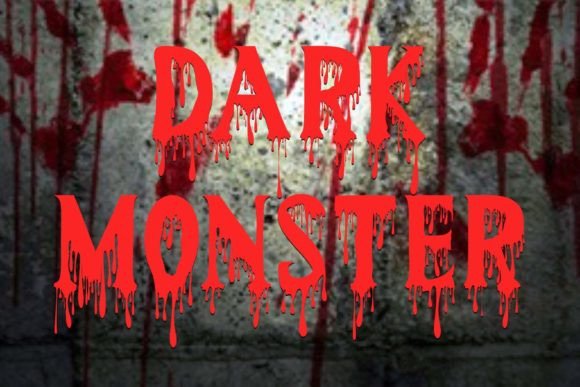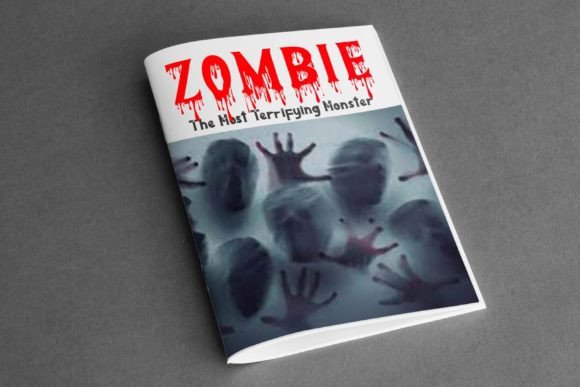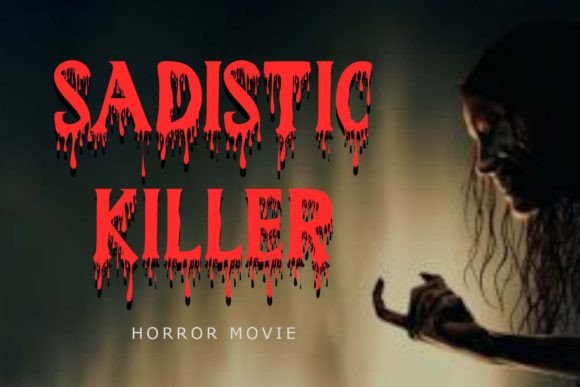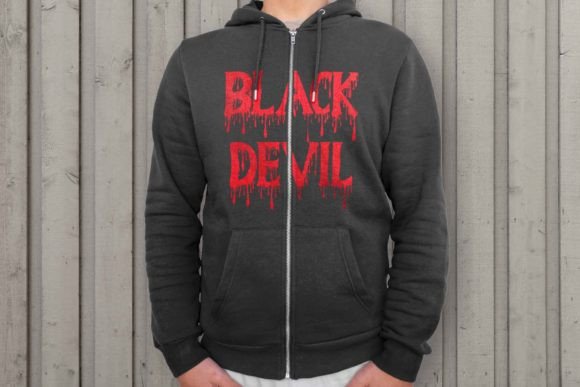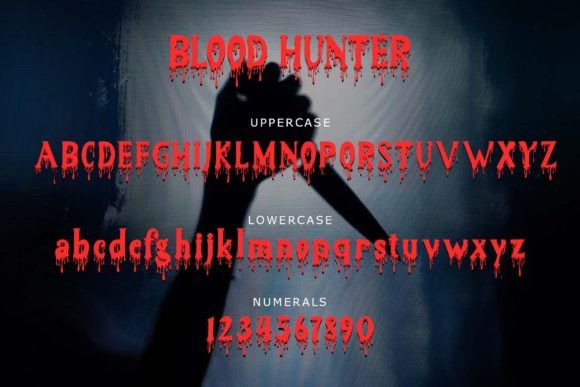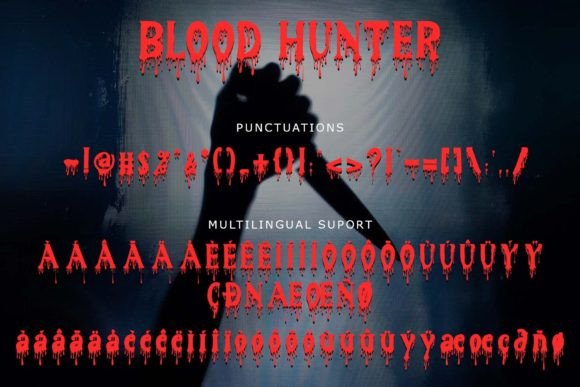
The Birth of a Horror Font: Unleashing the Blood Hunter
As a designer, have you ever found yourself staring at a blank page, struggling to find the perfect font to capture the essence of your dark and twisted project? I know I have. The hours tick by, and the cursor blinks mockingly, until suddenly, a spark of inspiration strikes, and you’re off and running. For me, that spark came in the form of a hauntingly beautiful font that seemed to bleed onto the page – the Blood Hunter Font.
This special edition font is more than just a pretty face; it’s a tool designed to unleash your inner horror enthusiast. With its unique melted blood effect on each letter, the Blood Hunter Font is the perfect addition to any project that needs a touch of darkness. Whether you’re designing a Halloween campaign, a horror movie title, or a metal music album cover, this font is sure to make your design stand out from the crowd.
Blood Hunter Font Key Features
- Font Family: Blood Hunter is a unique, hand-drawn font designed for horror and thriller genres.
- Unique Characteristics: Features a distressed, hand-crafted look with bold lines, intricate details, and a sense of wear and tear, perfect for creating a spooky atmosphere.
Blood Hunter Font Review
When I first laid eyes on the Blood Hunter font, I was immediately drawn to its dark and mysterious vibe ✨. The font’s use of bold lines, sharp edges, and a subtle texture creates a sense of grittiness that’s perfect for projects that need a touch of edginess.
The font’s versatility is also a major plus ✨. It can be used for a wide range of projects, from horror movie titles to metal band logos. The font’s boldness makes it perfect for headings and titles, while its subtlety allows it to blend in seamlessly with body text.
While the Blood Hunter font is a great addition to any designer’s toolkit, it’s not without its limitations ⚠️. One major issue is its lack of legibility at smaller font sizes. The font’s bold lines and sharp edges can make it difficult to read at smaller sizes, which may limit its use in certain projects.
- Limited font size flexibility
- Not ideal for body text at smaller sizes
Overall, I’m a big fan of the Blood Hunter font ✨. Its dark and mysterious vibe, combined with its versatility and bold design, make it a great addition to any designer’s toolkit. While it may have some limitations, I believe it’s a solid choice for projects that need a touch of edginess.
Tips for Getting the Most Out of Blood Hunter Font
Use Blood Hunter Font to add a touch of darkness and mystery to your designs. Pair it with bold, gothic-inspired graphics to create a dramatic effect. Experiment with different font sizes and styles to add depth and texture to your text elements.
Use Blood Hunter Font for:
- Horror-themed posters and flyers
- Gothic-inspired typography
- Mysterious and suspenseful story titles
- Dark fantasy and sci-fi designs